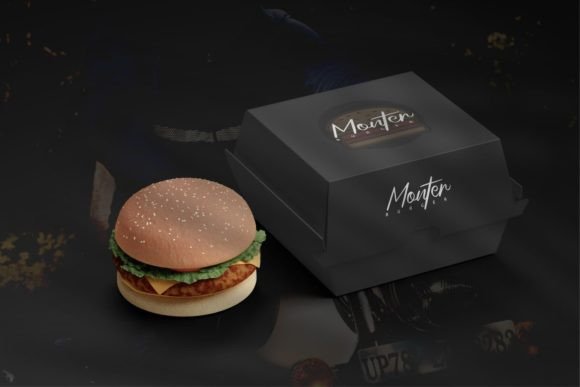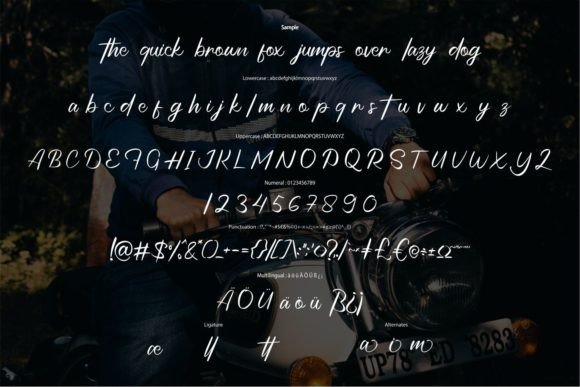
Introduction to Rollstone Font
For those who are still on the hunt, we’re excited to introduce you to the Rollstone Font, a stunning and bold handwritten font that’s sure to elevate your design projects. With its strong, confident, and dynamic feel, Rollstone Font adds a touch of nostalgia and character to any creative endeavor. Whether you’re working on a free download or a high-quality design resource, this font is the perfect addition to your design toolkit.
Key Features of Rollstone Font
- Comes with a transparent background, making it easy to use on any design resource.
- Includes a range of characters, including uppercase and lowercase letters, numbers, and special characters.
- Designed at a high resolution (300 DPI), ensuring crisp and clear text in various sizes and resolutions.
- Suitable for use in a variety of design contexts, from logos and branding to digital products and print materials.
- Can be easily scaled and customized to fit the needs of your specific design project.
Honest Review: Rollstone Font
As a designer, I’m always on the lookout for high-quality design resources to elevate my creative projects. Recently, I had the chance to work with the Rollstone Font, and I’m excited to share my thoughts with you.
- ✨ The Rollstone Font has a unique, modern aesthetic that’s perfect for a variety of design applications.
- ✨ The font is highly legible, making it a great choice for body text or headlines.
- ✨ The font includes a transparent background, which is super handy for graphic designers who need to work with complex backgrounds.
- ⚠️ The font doesn’t come with a lot of customization options, which might be a drawback for designers who like to tweak their fonts to fit their specific needs.
- ⚠️ The font doesn’t support a lot of languages, which might be a limitation for designers who need to work with multilingual projects.
Overall, I think the Rollstone Font is a solid addition to any designer’s toolkit. While it has its limitations, its unique aesthetic and high quality make it a great choice for creative projects. If you’re looking for a free, high-quality font for your next design project, I’d definitely recommend giving the Rollstone Font a try.
Tips for Getting the Most Out of the Rollstone Font
For best results, use the Rollstone Font on a transparent background to create a clean and modern look. Experiment with different font sizes and styles to add depth and interest to your design. You can also pair the Rollstone Font with other fonts to create a unique and eye-catching design.
Common Use Cases for the Rollstone Font
The Rollstone Font is ideal for a variety of creative projects, including logos, business cards, and brochures. It’s also a great choice for digital media, such as social media graphics and website headers. With its high-quality design and versatility, the Rollstone Font is a valuable resource for any design project.